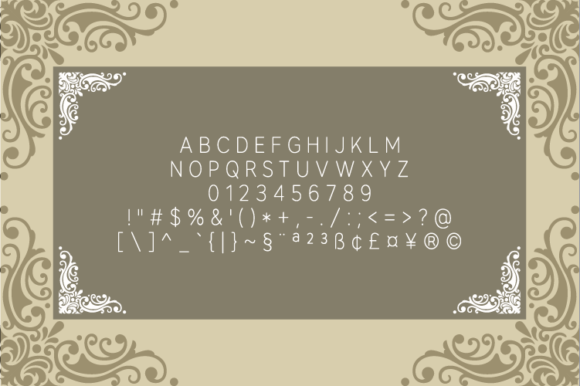
Introduction to Nagatshu Light Font
Nagatshu is inspired by classic typography and brings its own unique style to any design project.
Use this gorgeous and unique sans serif font to bring any DIY project to life .
Key Features of Nagatshu Light Font
Why Choose Nagatshu Light Font?